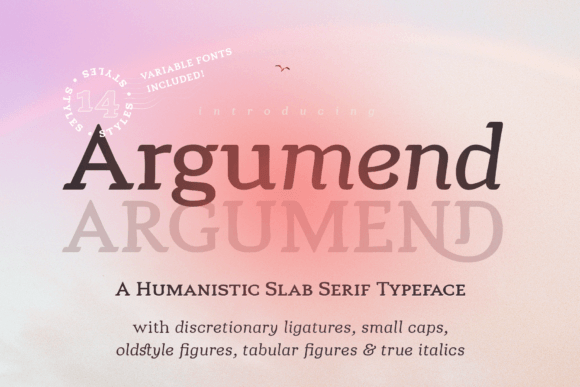
Embark on a typographic journey with Argumend, the slab serif typeface that will redefine your editorial designs. Created by the visionary Ayca Atalay, Argumend is a versatile font family that invites you to explore the boundaries of creativity.
Indulge in a world of typographic possibilities with Argumend's extensive Opentype features. Craft captivating headlines that demand attention, utilizing the meticulously designed upper case ligatures. Discover the power of mindful body copy, brought to life by Argumend's diverse weights and true italics.
With Argumend, versatility reigns supreme. Its wide range of options empowers you to create text that captivates and inspires. Elevate your designs with Argumend's PUA encoding, granting you effortless access to a treasure trove of glyphs and swashes. Unleash your imagination and let your words dance across the page with grace and elegance.
Argumend is more than just a font; it's an artistic expression waiting to be discovered. Its slab serif structure exudes a timeless charm, while its contemporary twist adds a touch of modernity. Embrace the beauty of contrast as Argumend effortlessly blends classic elements with a fresh, innovative spirit.
Say goodbye to ordinary fonts and embrace the extraordinary with Argumend. Its ability to transform ordinary words into captivating statements will leave you spellbound. Experience the thrill of creating designs that captivate audiences, leaving a lasting impression that resonates long after they've turned the page.